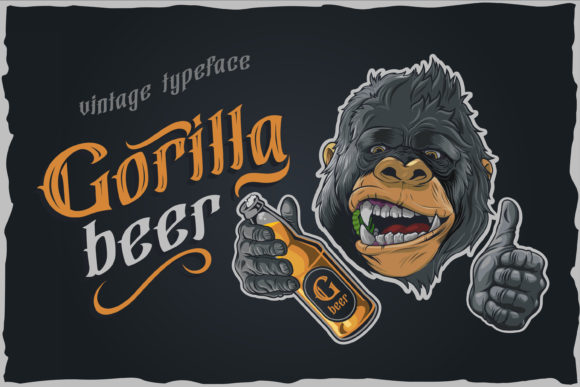
Are you seeking a font that radiates boldness, character, and a touch of wild charm? Look no further than Gorilla Beer, the ultimate blackletter font designed to unleash your creativity. Gorilla Beer, crafted by the ingenious Fractal Font Factory, is a font that embodies the spirit of the untamed, the daring, and the extraordinary.
Gorilla Beer is not just a font; it's an artistic journey that takes you beyond the boundaries of conventional design. With its captivating curves and striking edges, this font will transform your words into captivating works of art. Imagine your logos and branding adorned with Gorilla Beer, exuding an aura of strength and confidence that will leave a lasting impression on your audience.
But Gorilla Beer is not just about aesthetics; it's also about functionality and versatility. Its meticulously crafted characters ensure readability and clarity across various platforms, making it the perfect choice for everything from logos and branding to posters and social media graphics. Gorilla Beer is the font that adapts to your creative vision, seamlessly blending into any design concept.
Unleash the power of Gorilla Beer and watch your creative endeavors soar to new heights. Let this font ignite your imagination and guide you toward creating designs that captivate, inspire, and leave an unforgettable mark on your audience. Embrace the untamed spirit of Gorilla Beer and embark on a typographic adventure that knows no bounds.